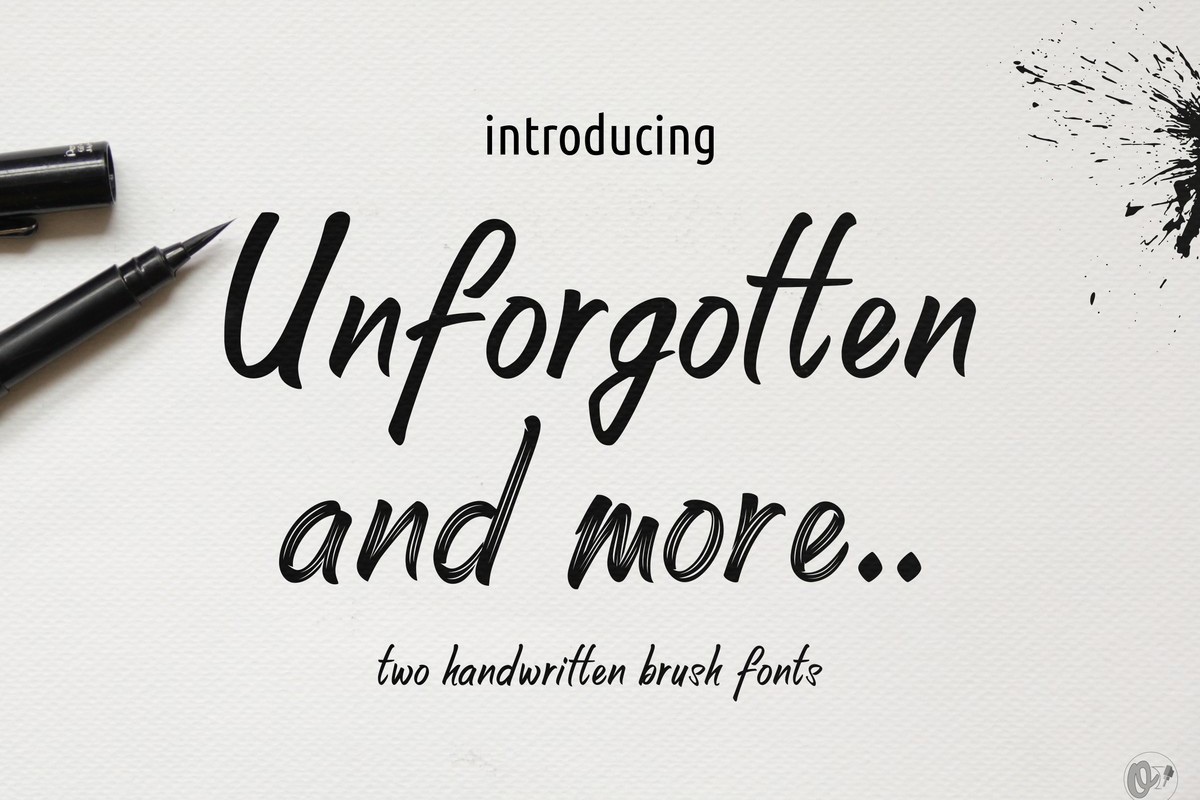
Unforgotten Font
Unforgotten Font is perfect for memorial services, historical documentaries, legacy brands, heritage preservation, vintage photography, nostalgic campaigns, commemorative materials, emotional storytelling, remembrance projects, and timeless brand identities.
What makes Unforgotten Font exciting is its enduring memory that captures the essence of lasting legacy and emotional connection through memorably crafted letterforms. This poignant typeface combines nostalgic charm with contemporary functionality, creating a personality that communicates permanence, remembrance, and genuine emotional depth. The font's memorial character and timeless appeal make it perfect for brands and projects seeking to honor memories, celebrate heritage, and create lasting emotional connections with audiences who value tradition and meaningful experiences.
The Unforgotten Font family includes Regular, Bold, Light, Medium, Memorial, Timeless, Condensed, and Legacy variants. Each weight maintains the font's memorable character while providing comprehensive typographic flexibility for heritage brand identity systems and emotional design applications across diverse commemorative platforms.
Whether you're developing memorial brand identities, creating heritage marketing materials, designing commemorative publications, or building emotional storytelling campaigns, Unforgotten Font delivers unmatched memorial appeal and timeless sophistication. Its enduring presence makes it perfect for memorial services, heritage organizations, legacy brands, and cultural institutions seeking authentic commemorative representation.
The font's enduring proportions and memorial details create a touching reading experience that honors cherished memories and celebrates lasting legacies. Each letterform has been carefully crafted to convey permanence, respect, and emotional depth that resonates with audiences seeking meaningful connections and heritage preservation.
This versatile typeface excels in commemorative environments, offering designers the emotional depth needed for comprehensive memorial brand communication strategies. The extensive character set includes memorial alternates, timeless ligatures, and heritage symbols for commemorative market positioning and legacy brand storytelling.
Embrace the power of memorial design that celebrates enduring memories and honors meaningful heritage connections.